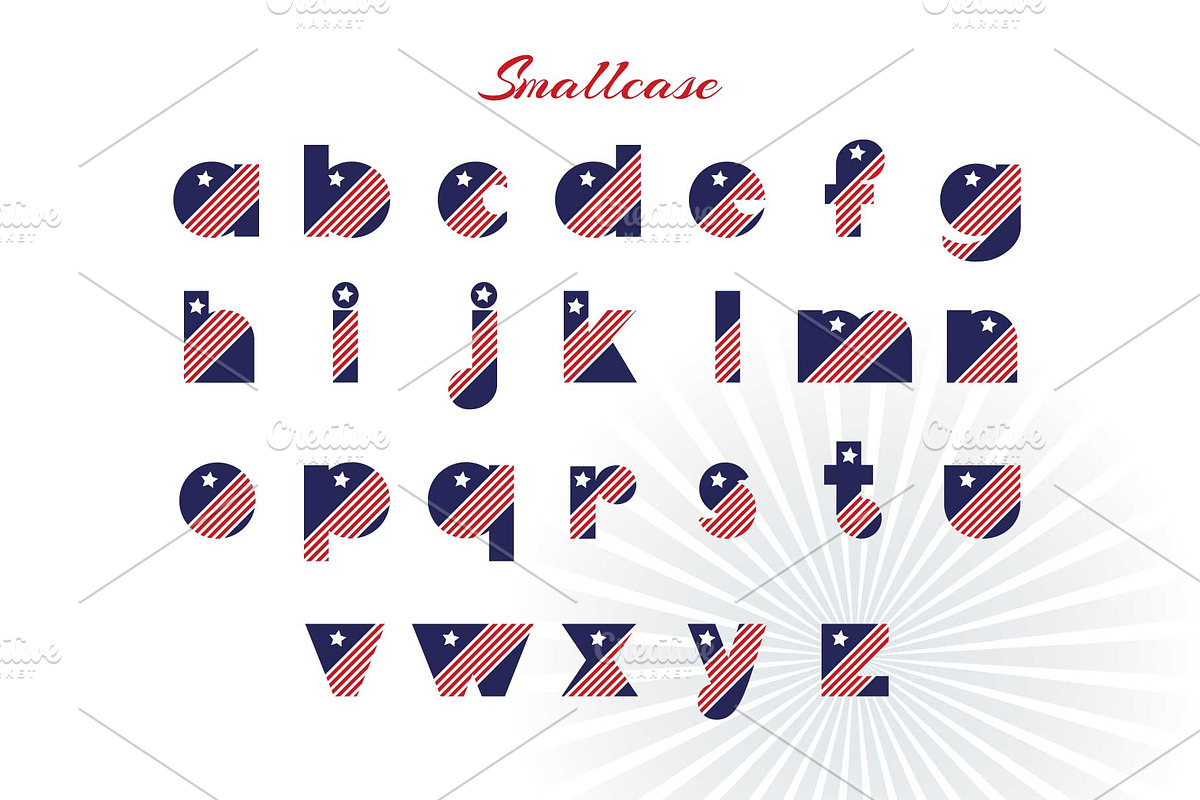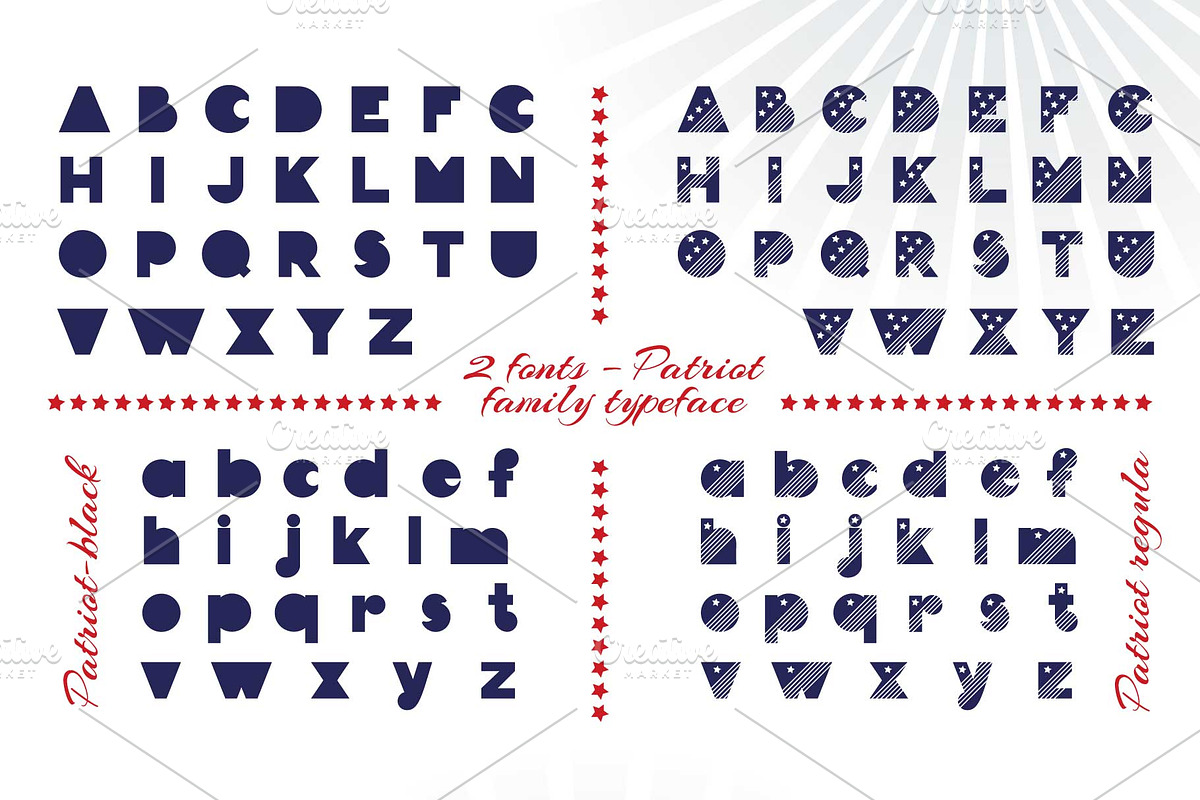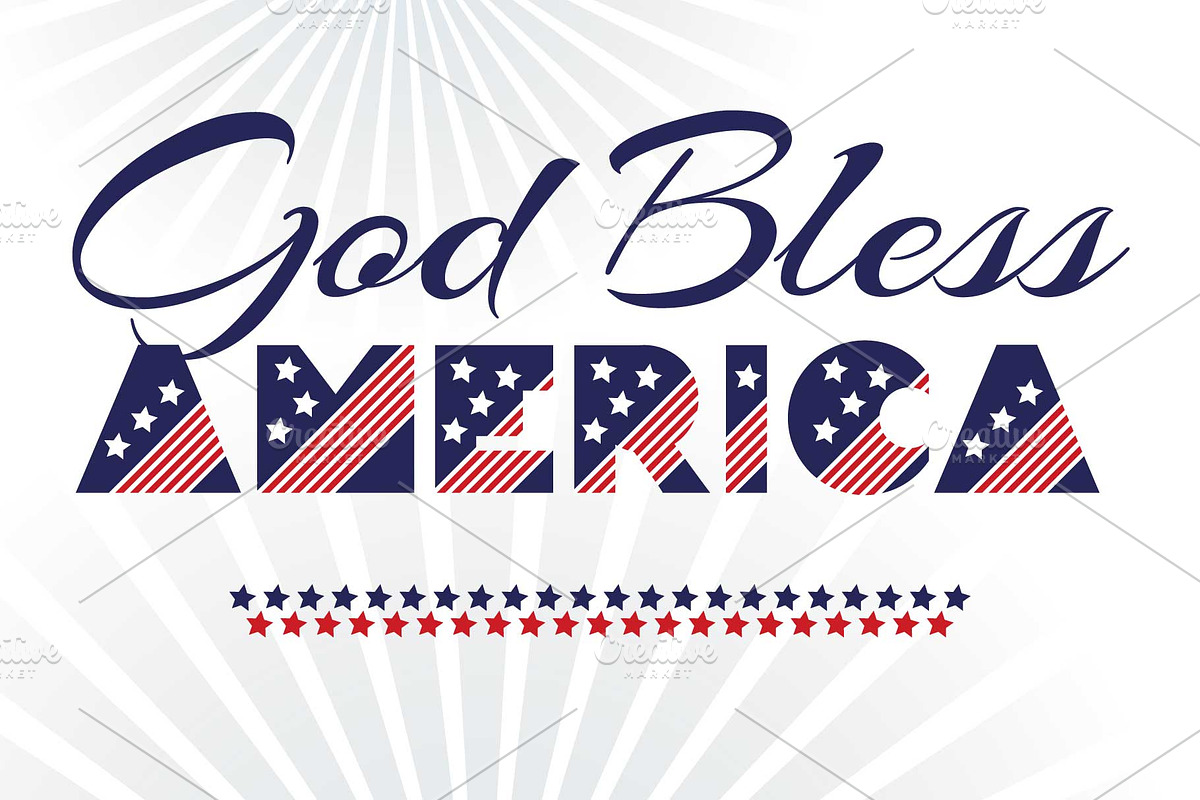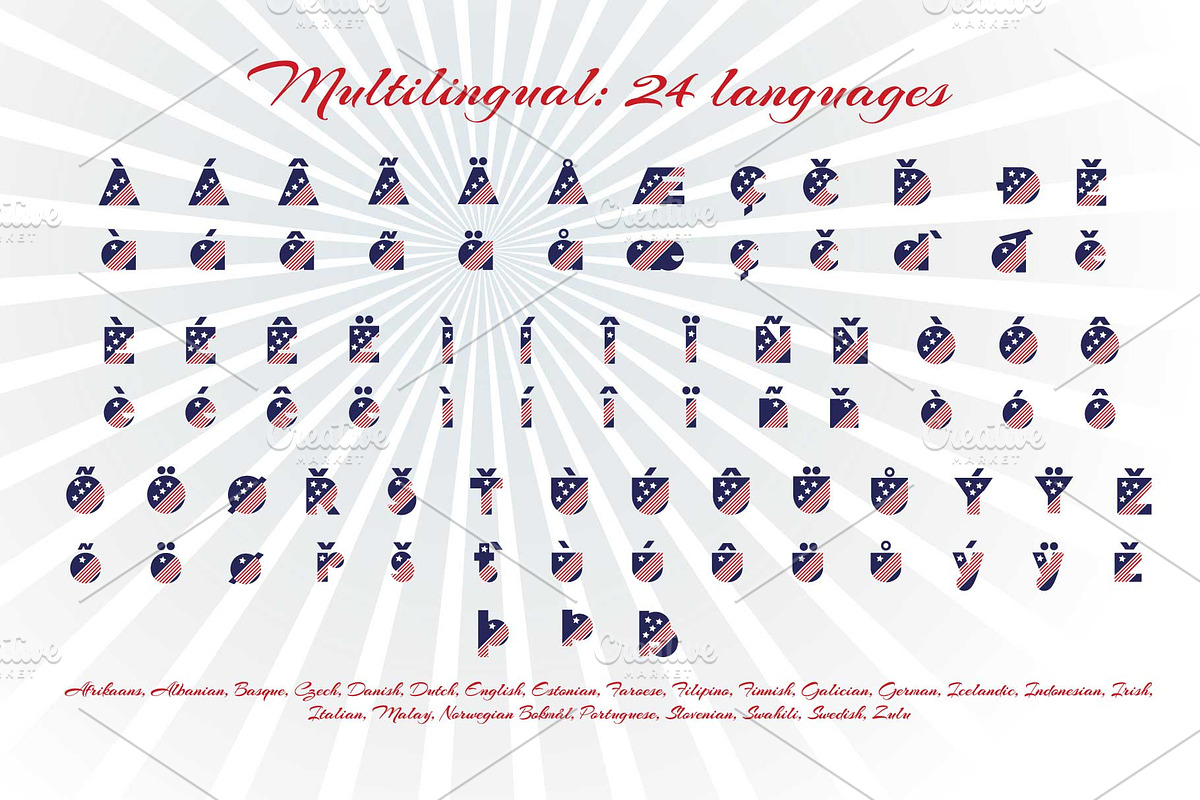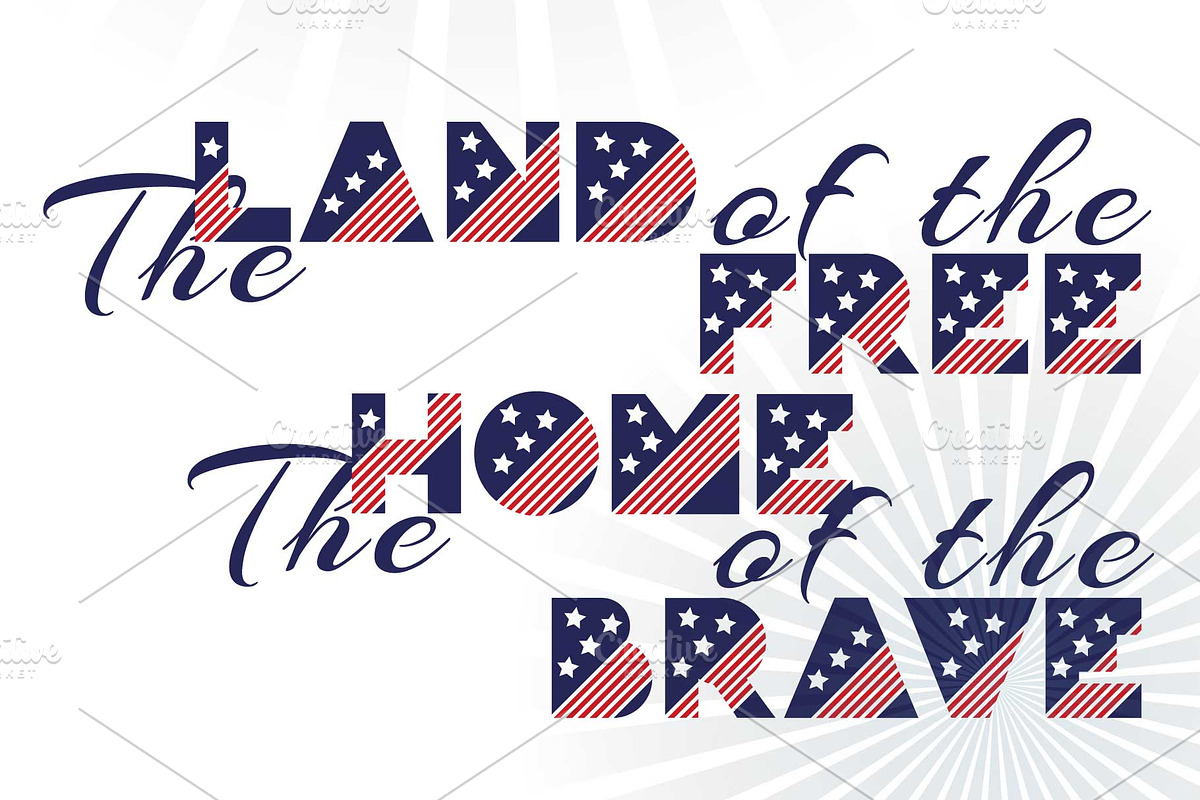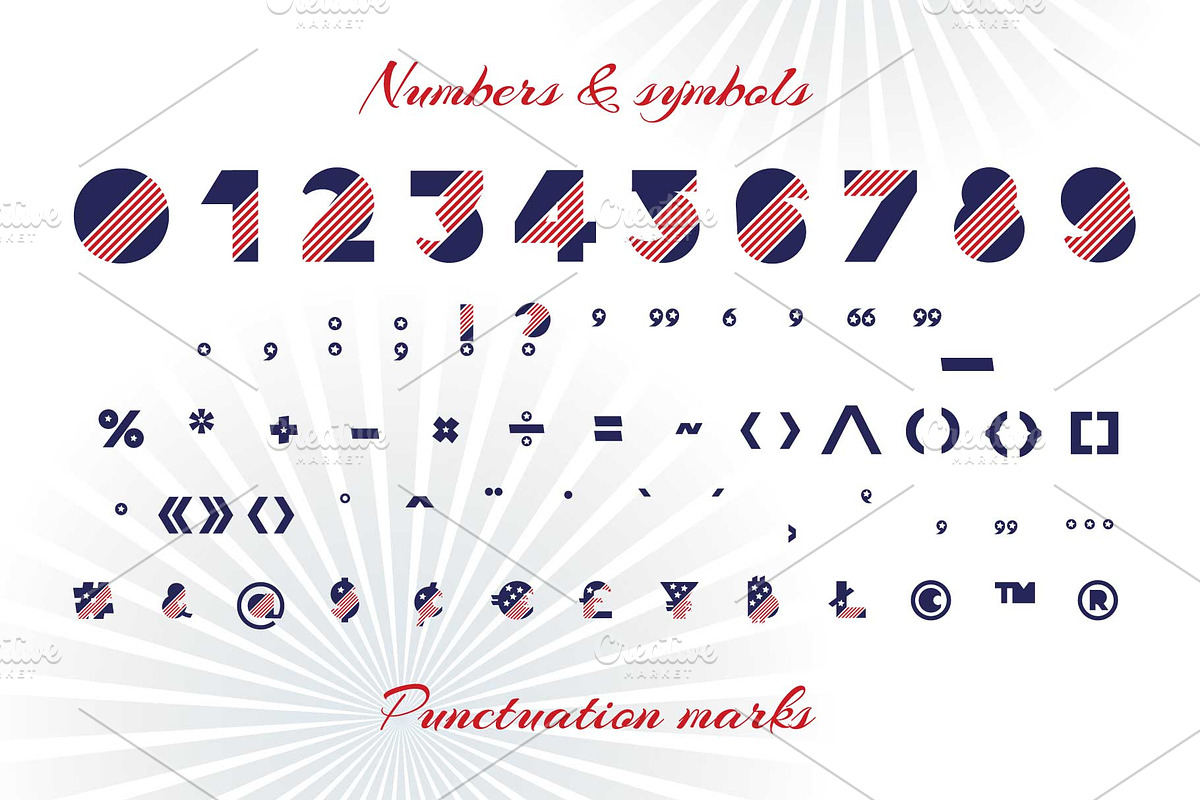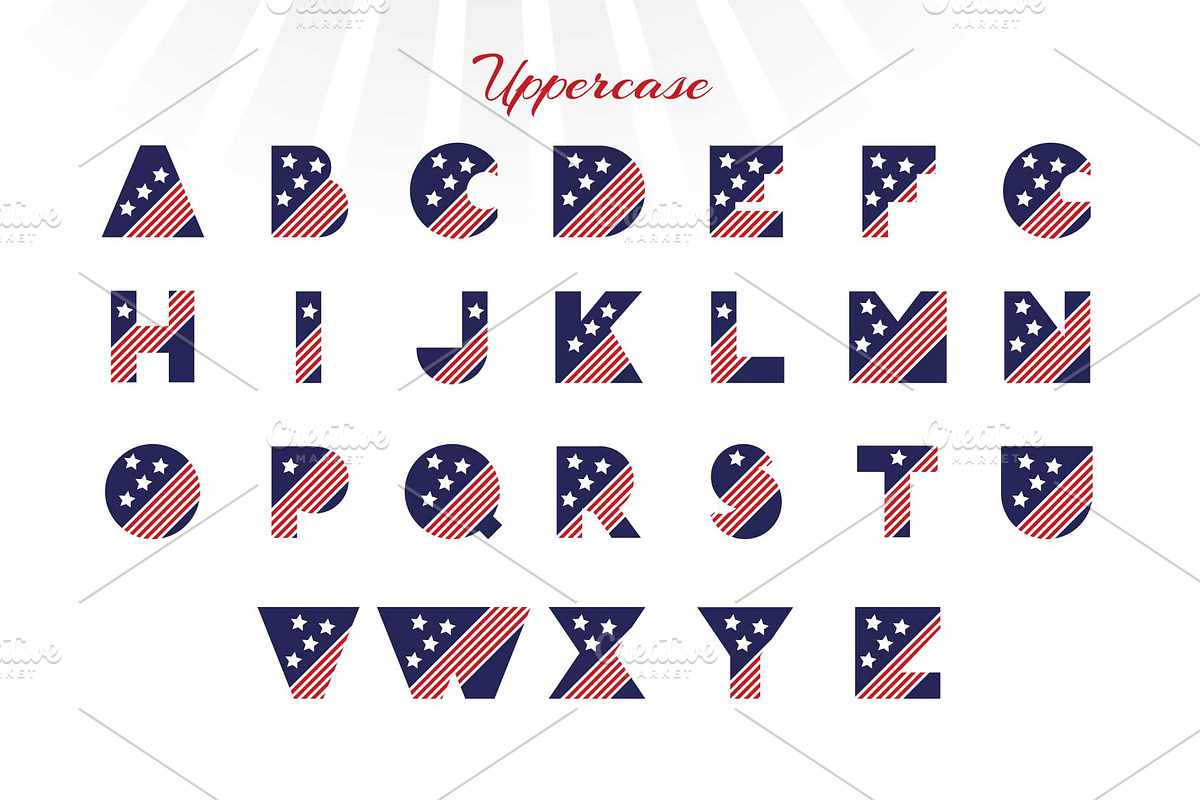
Patriot font family
Patriot colorful OTF font. Modern display colorful grotesque sans-serif font.
By creating Patriot colorful font I was inspired by the holiday by the day of US independence, on 4th of July. It’s a stunning geometric display colorful font, perfect for completely contemporary designs that need a color block appeal. This gorgeous font family comes in both OTF and SVG file types, making this color font versatile enough to suit all your design needs. It works best for logotypes, signage and advertising, modern typography posters and design t-shirt, greeting card and web, and other OpenType Font was designed with Fontself Maker in Illustrator CC. Contains CAPITALS & STRINGS letters, NUMERALS & DIGITS, PUNCTUATION, MULTILINGUAL.
With multicolor OTF font, you can type multicolor text. In earlier versions of Photoshop and Illustrator, as well as office applications, the font will be displayed in black and white and you can type black color text, like most other fonts on your system Bonus: Colorful vector alphabet, numerals and punctuations. With multicolor Vector alphabet, you can manipulate letters in form of vector shapes in Illustrator i.e.
- Contains CAPITALS & STRINGS letters, NUMERALS & DIGITS, PUNCTUATION, MULTILINGUAL.